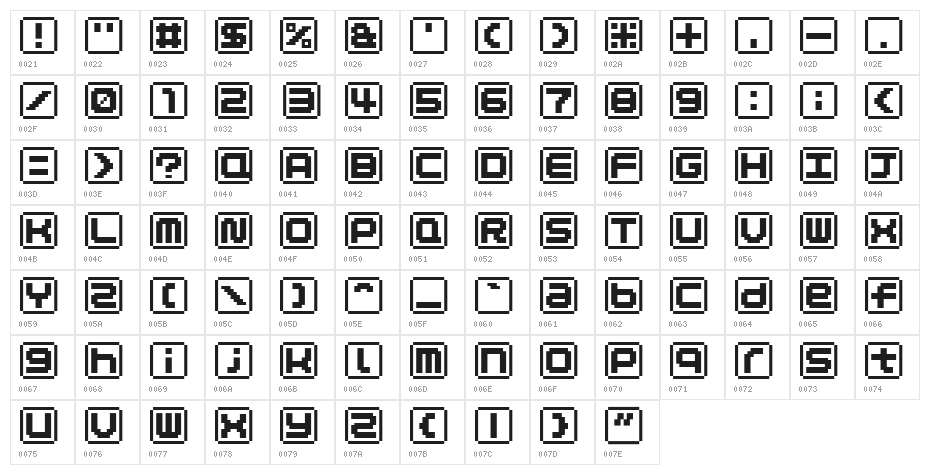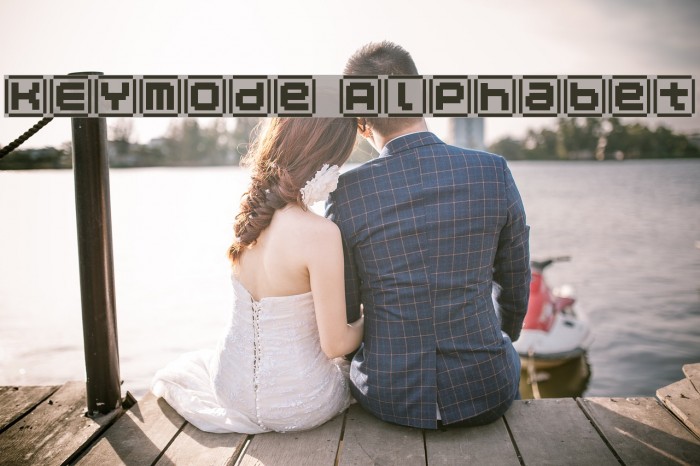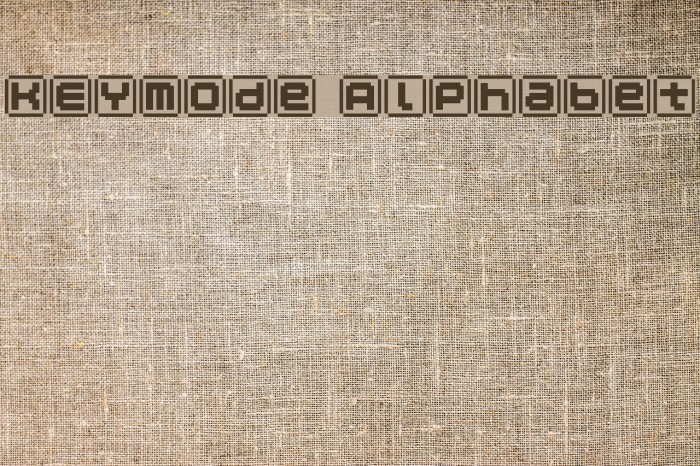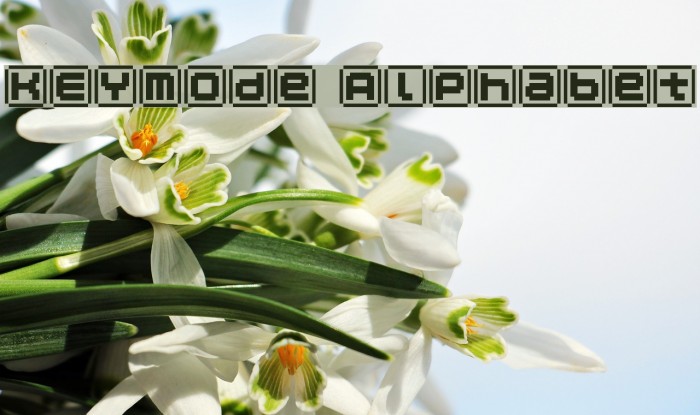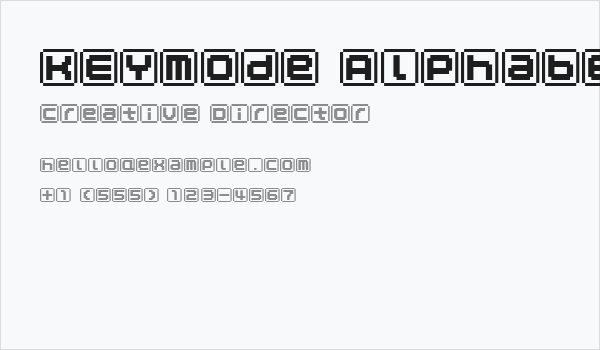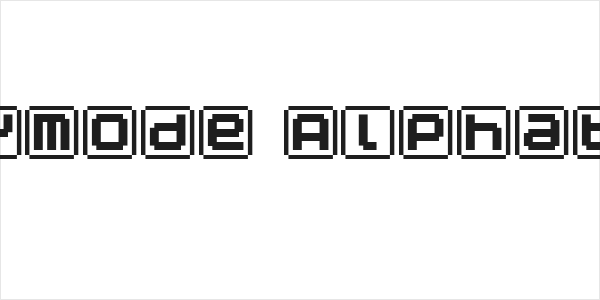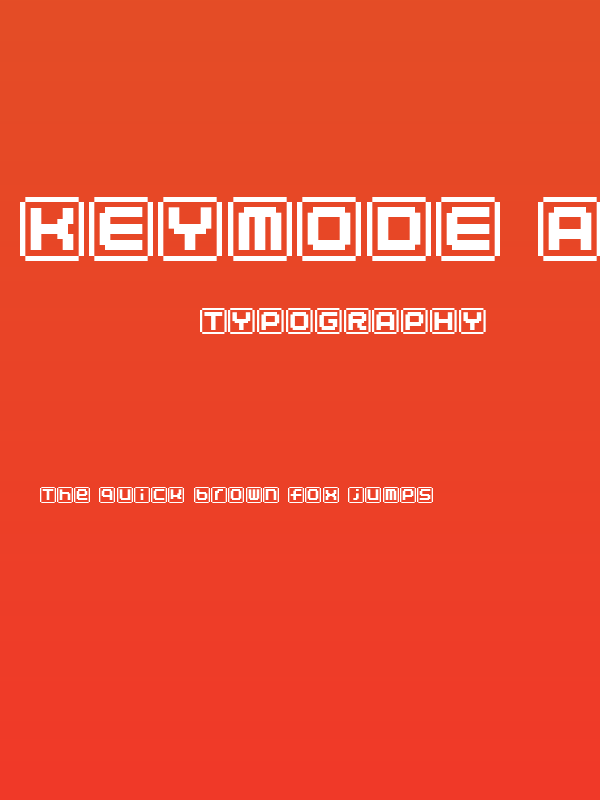
KEYmode Alphabet Font
KEYmode Alphabet Description
This font features a bold, geometric design with a distinct blocky appearance. Each character is enclosed within a square, giving it a pixelated, digital aesthetic reminiscent of early computer graphics or arcade games. The uniformity of the characters creates a cohesive and structured look, making it highly legible and visually striking. The uppercase and lowercase letters maintain the same width, contributing to its monospaced feel. The numbers and special characters follow the same design principles, ensuring consistency across all elements.
Overall StyleRetro, Digital
Proposed ProjectsIdeal for retro-themed designs, video game graphics, digital art projects, and any creative work that requires a nostalgic or tech-inspired look.